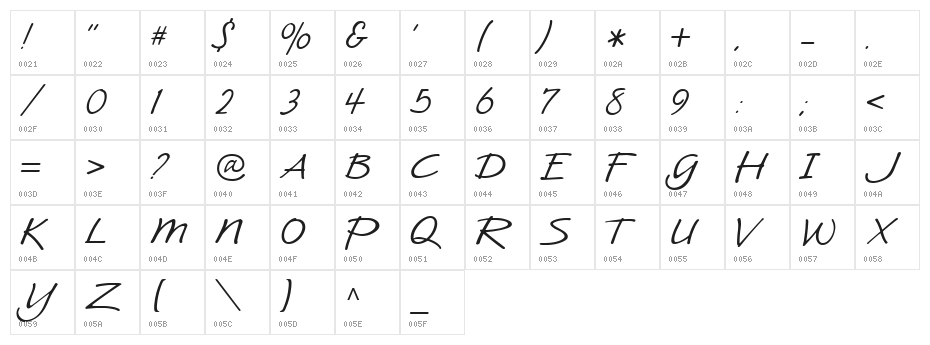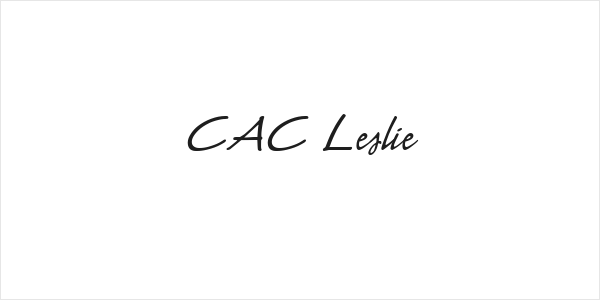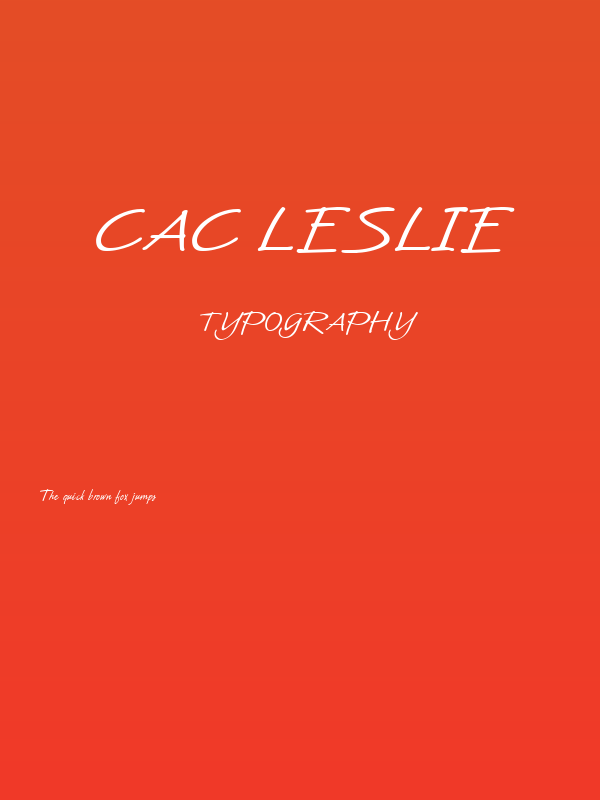
CAC Leslie Font
CAC Leslie Description
This font features a flowing, cursive style that mimics elegant handwriting. The characters are slightly slanted, giving a sense of motion and fluidity. Uppercase letters are distinct and stylish, with a consistent height that maintains readability. Lowercase letters connect smoothly, enhancing the script-like appearance. The numerals are clear and well-proportioned, fitting seamlessly with the overall design. Special characters are crafted with the same attention to detail, ensuring they complement the alphabetic characters. This font exudes a sense of sophistication and grace, making it suitable for formal and creative applications.
| Overall Style | Elegant, Handwritten |
| Proposed Projects | Ideal for wedding invitations, greeting cards, personal branding, and elegant logos. |